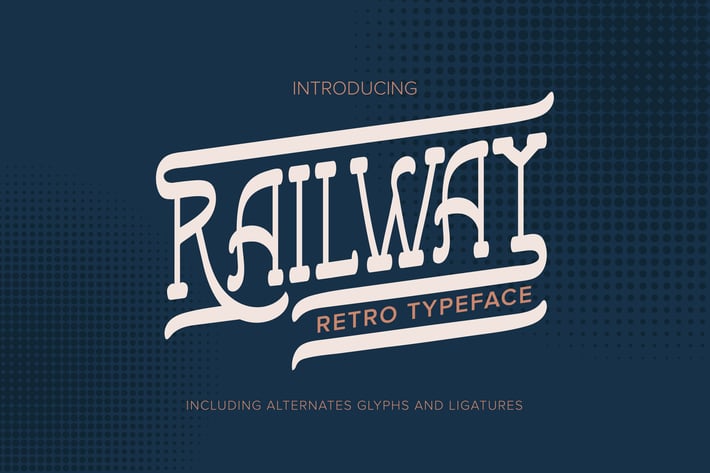
Railway | Retro Typeface
Railway | Retro Typeface with a calligraphy style, So beautiful on invitation like greeting cards, branding materials, business cards, quotes, posters, and more!